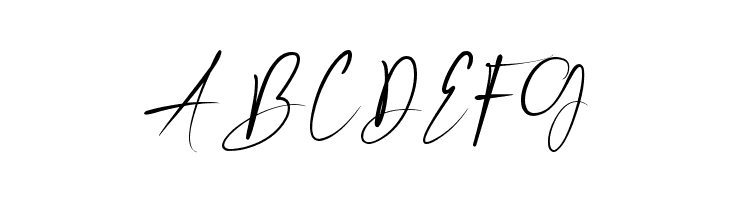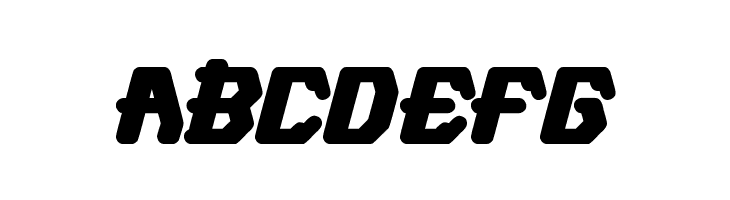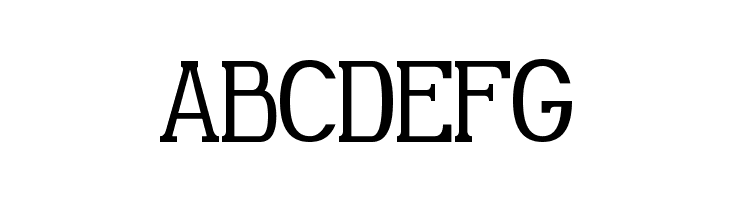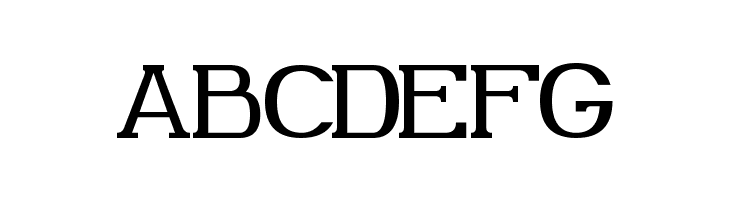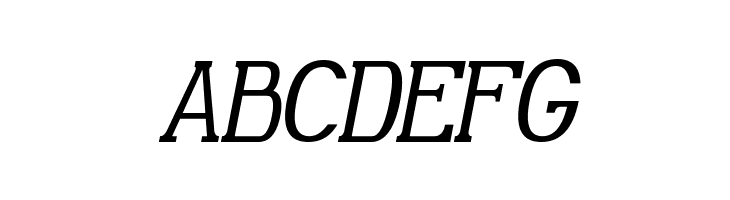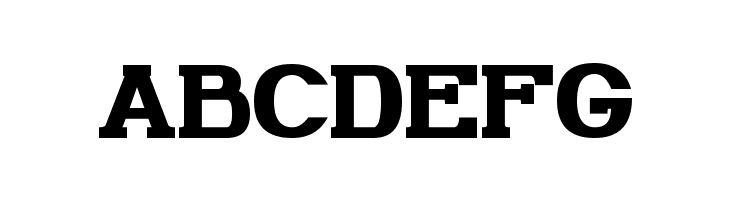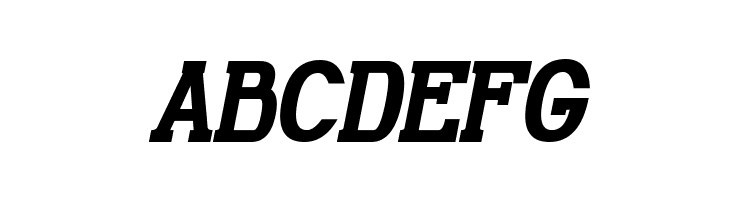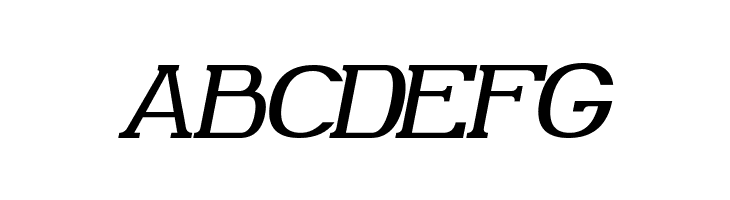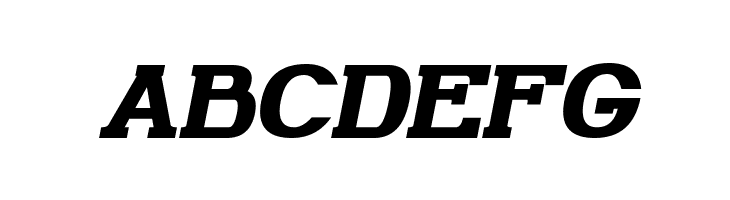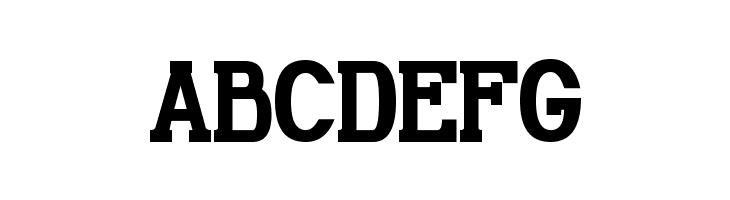
• FUTURISTIC
A bold, futuristic font with angular, geometric shapes.
A flowing, elegant script font with a natural handwritten style.
• Gabriel Serif
A classic serif typeface with a modern twist, offering elegance and versatility.
• Gabriel Serif Bold
A bold serif font with strong, thick strokes and prominent serifs.
• Gabriel Serif Bold Italic
A bold, italic serif font with strong strokes and a classic, elegant style.
• Gabriel Serif Condensed
A modern, condensed serif font with elegant and refined letterforms.
• Gabriel Serif Condensed Bold
A bold, condensed serif font with strong, thick strokes and prominent serifs.
• Gabriel Serif Condensed Bold Italic
A bold, condensed serif font with italic styling for impactful and elegant designs.
• Gabriel Serif Condensed Italic
A classic serif font with a condensed and italicized style, offering elegance and sophistication.
• Gabriel Serif Italic
An elegant serif font with a pronounced italic slant, offering sophistication and fluidity.